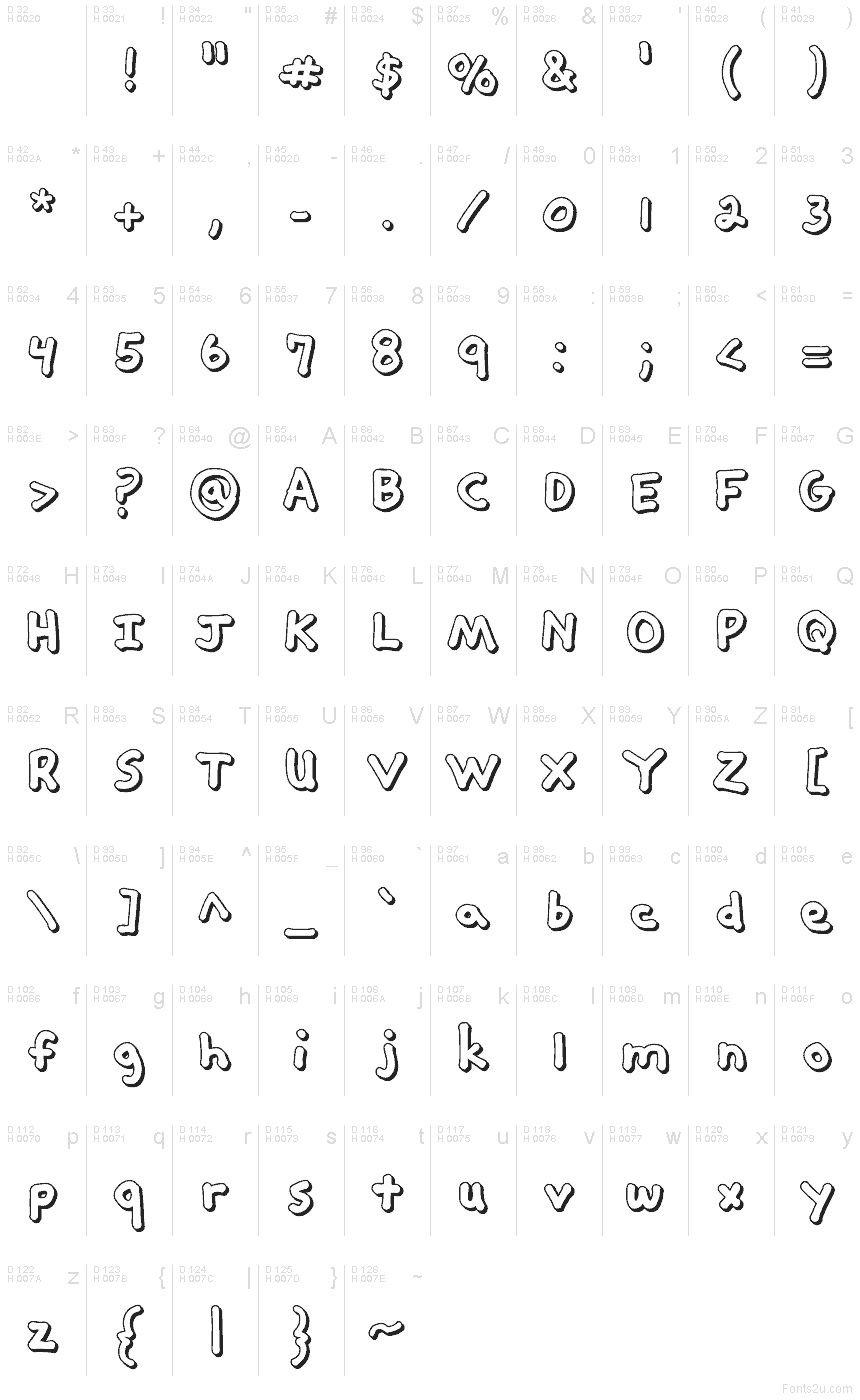
Toddworld Shadow rg
Toddworld Shadow font by Élise Benoît Fonts is a free cartoon display typeface. Its squishy letterforms wear a bold, inky outline with a soft shadow that feels like cut-out stickers—bouncy, friendly, and instantly legible. Part of the Toddworld family, it adds pop and depth without extra effects, so your title looks lively even on busy, colorful backgrounds.
Using Toddworld Shadow, headlines jump off the page for kids’ book covers, birthday invites, classroom posters, toy packaging, YouTube thumbnails, party banners, and sticker sheets. The steady rhythm and rounded weight keep text cheerful while staying clear at large sizes. Pair this free font with a simple rounded sans for captions, or give it roomy spacing to let the bubbly shapes breathe.